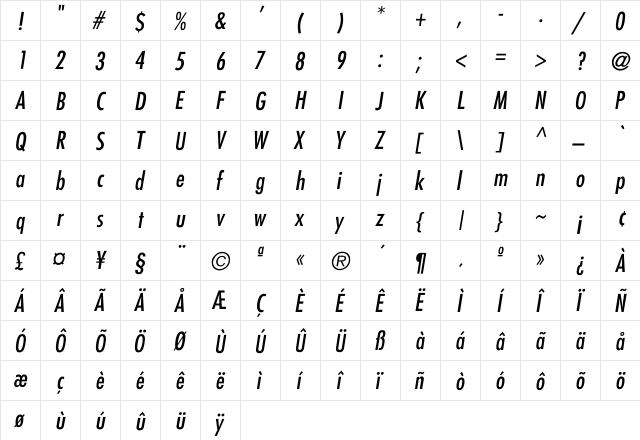
Fairmont-Cond-Italic Regular
Design Context for Fairmont-Cond-Italic Typeface
Fairmont-Cond-Italic is a composed and adaptable typeface that performs quietly and consistently across a wide range of design contexts. Its italic angle brings a sense of urgency and motion to the letterforms. Its narrow stance lets it pack a punch even in space-constrained designs.
Pro Tip: Try Fairmont-Cond-Italic for annotation and caption copy alongside an upright companion — the contrast in angle creates a dynamic but ordered typographic system.